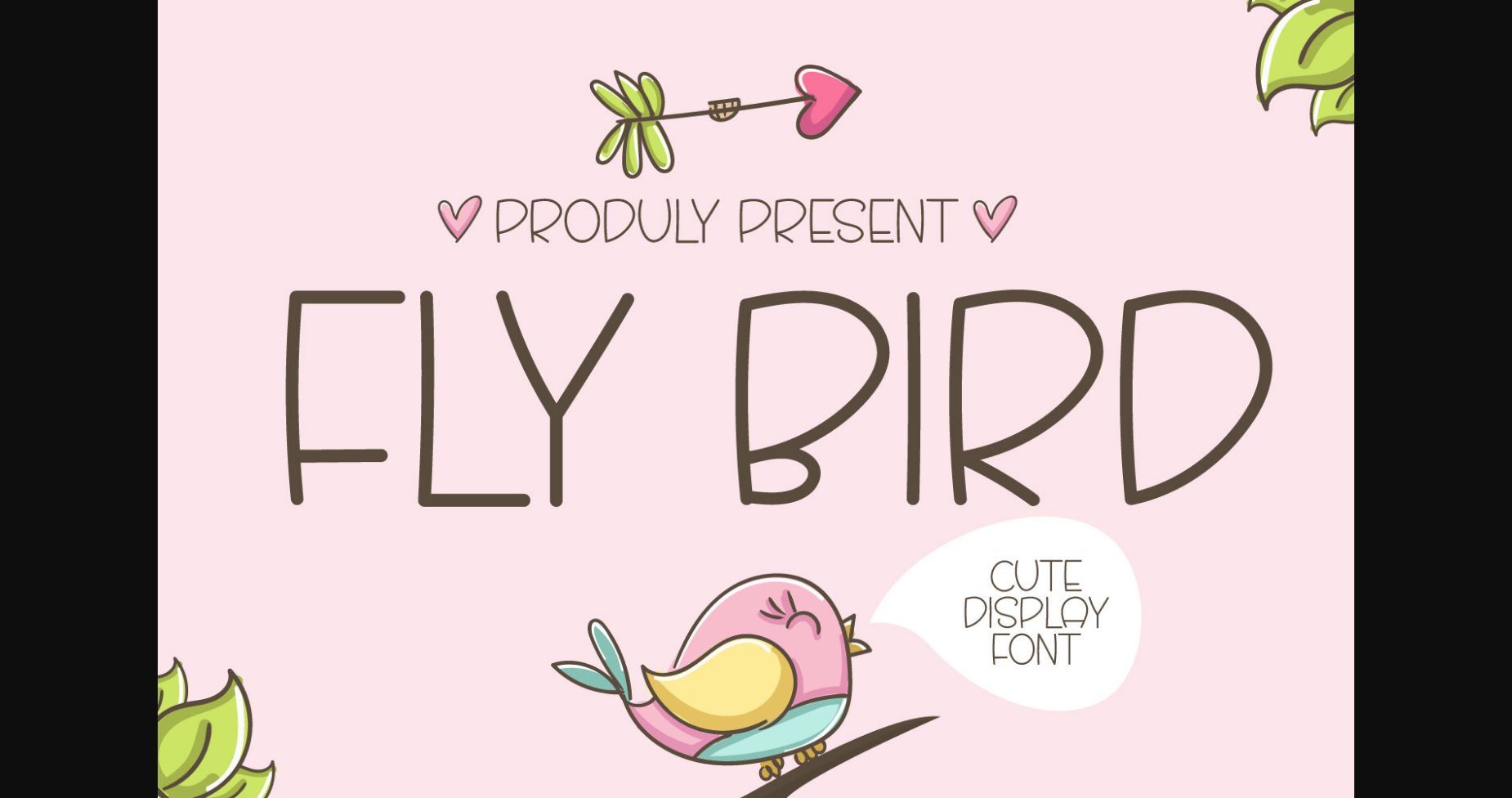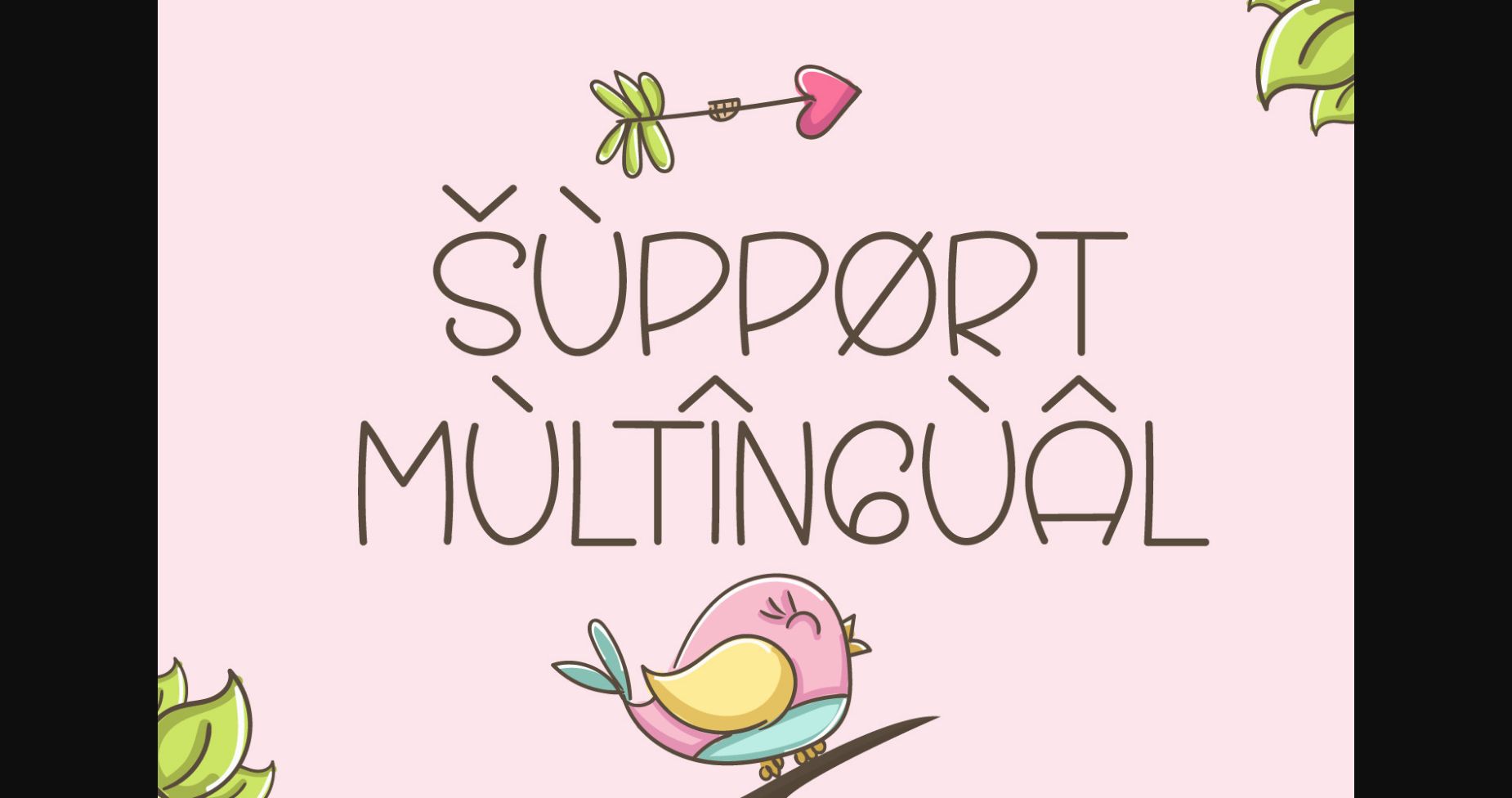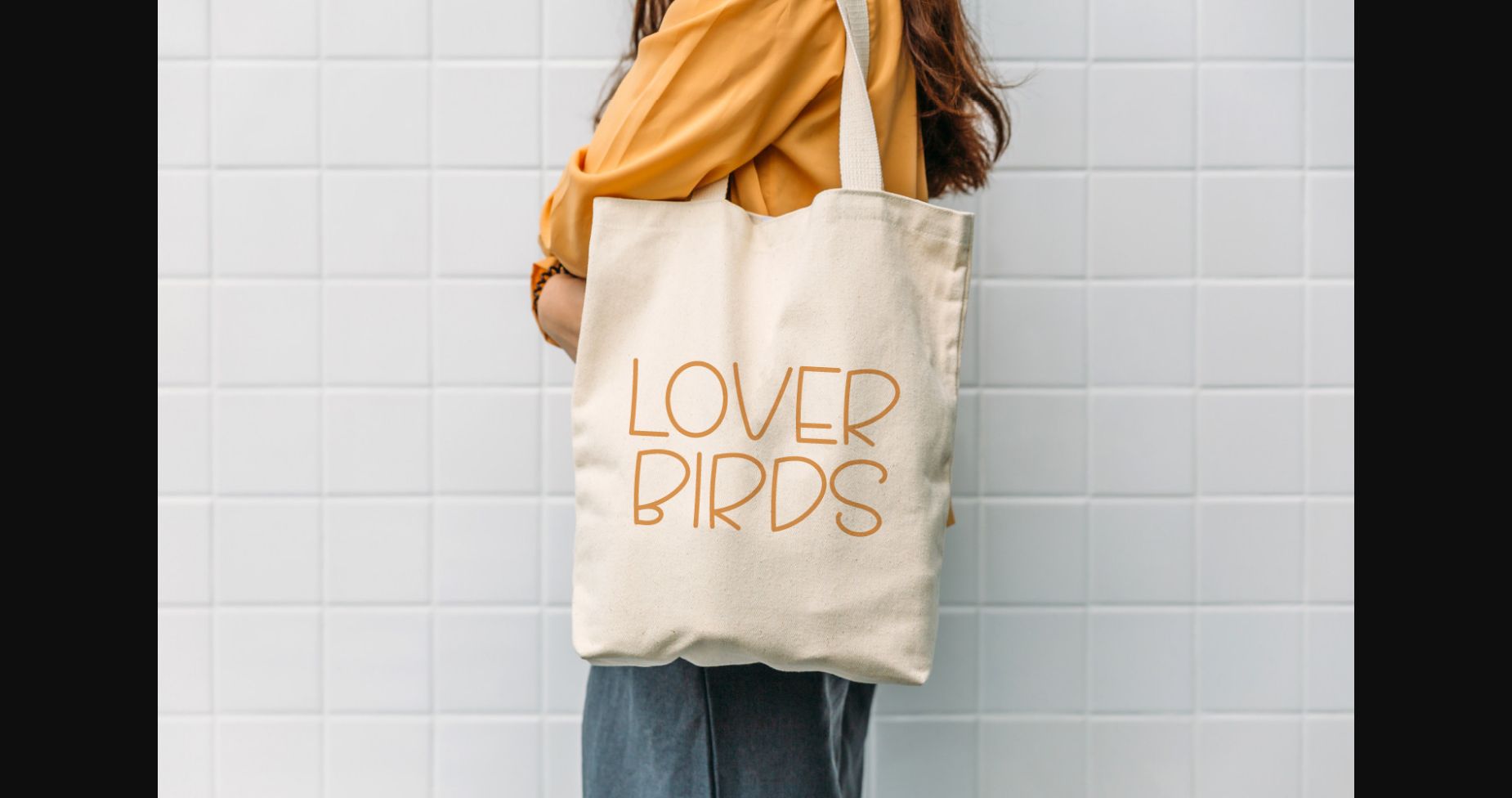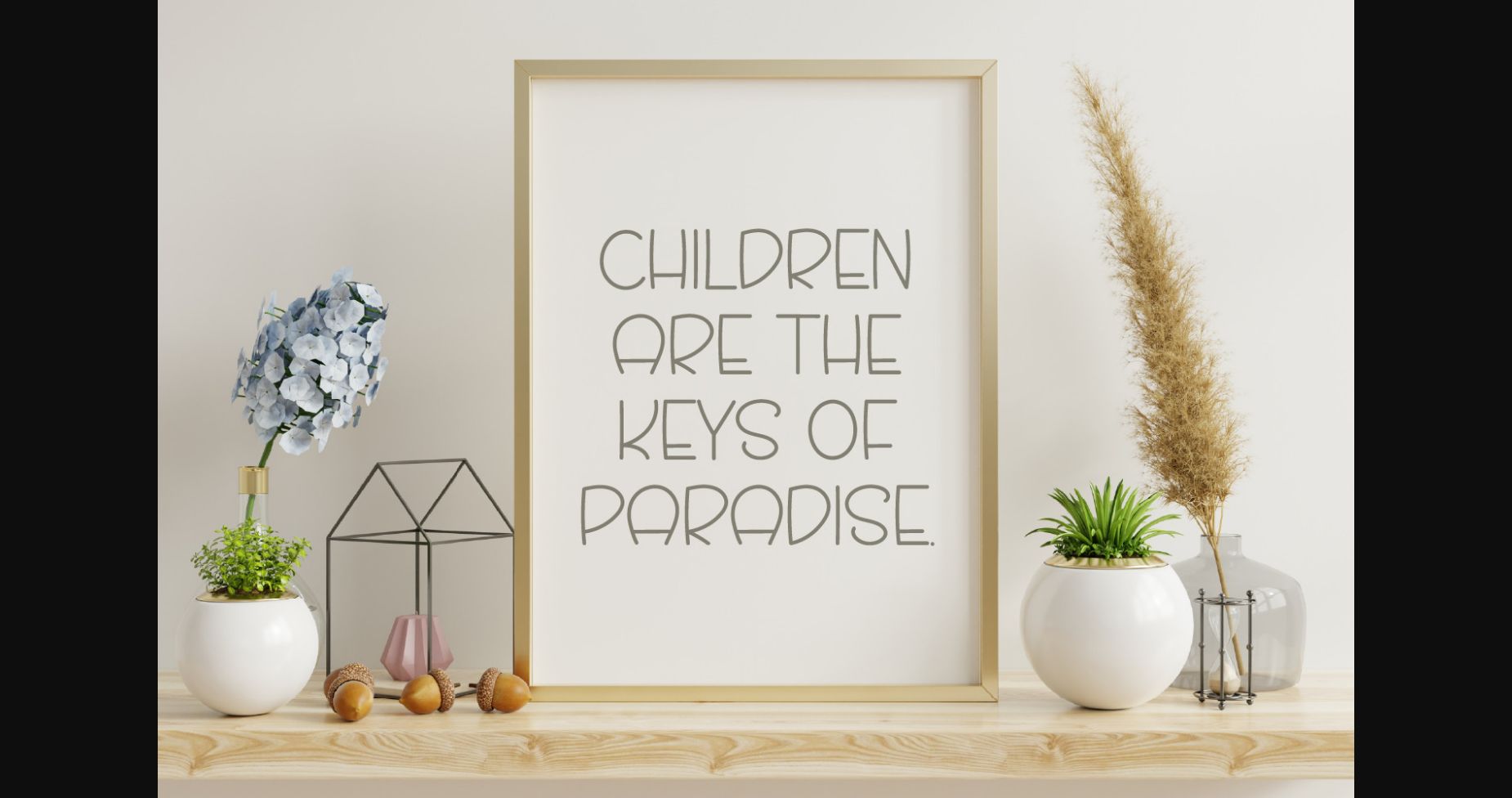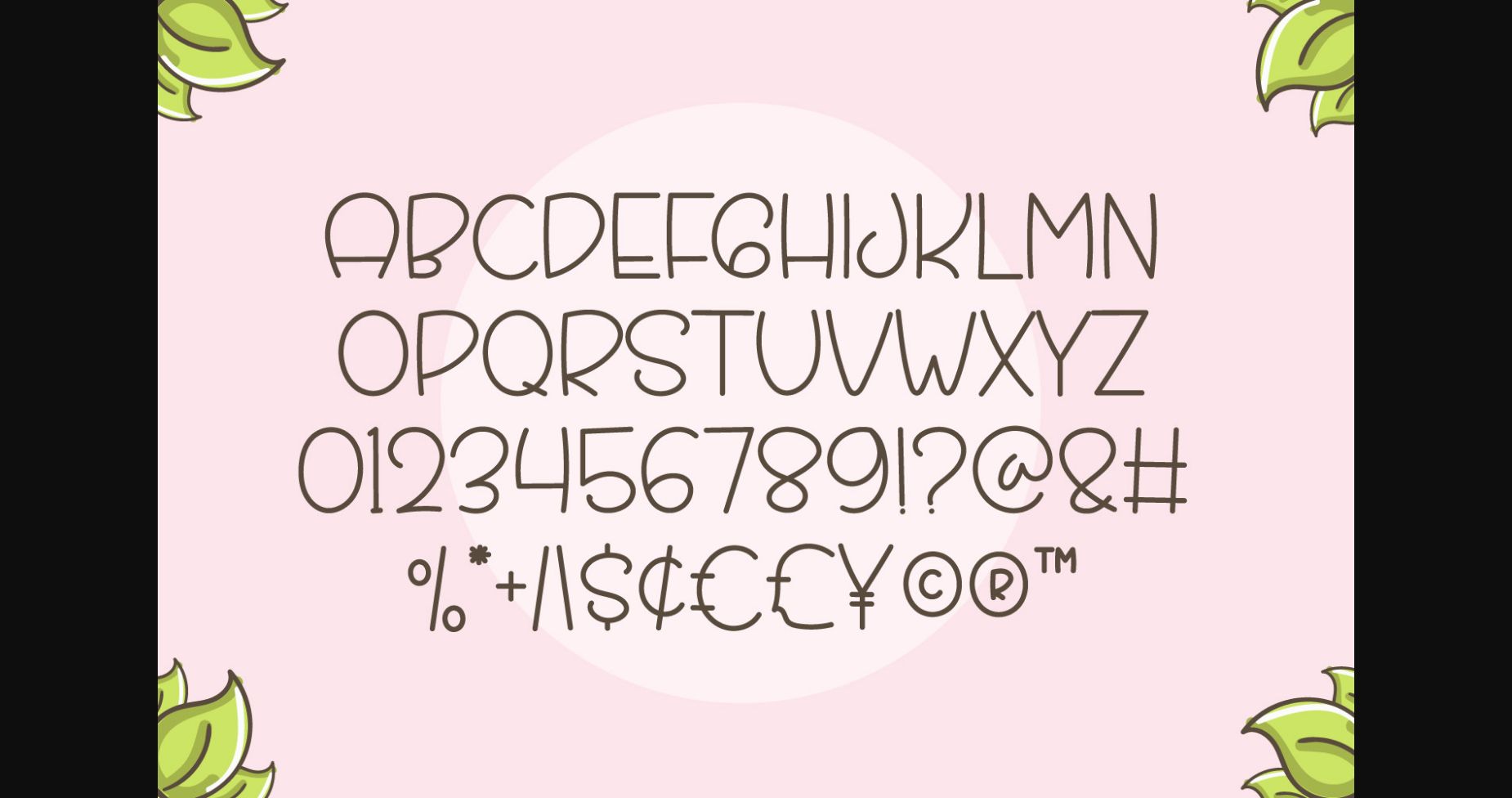
About Fly Bird Font
Fly bird is a quirky and fun sans serif font. With charming and slightly uneven characters, this font will add a happy, sophisticated look to any of your wonderful creations!